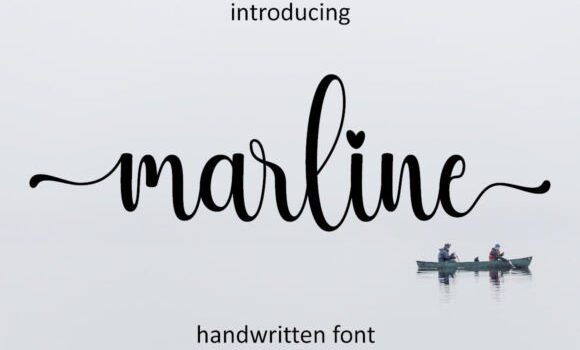
marline
Marline Font – Free Download Introduction to Marline Font Marline is a simple and friendly handwritten font. 📸 Preview Gallery 6 images 📌 Product Name Marline Font 👤 Author Hardiboy Design 📂 Category Explore ⬇️ Download Marline Font FREE Free